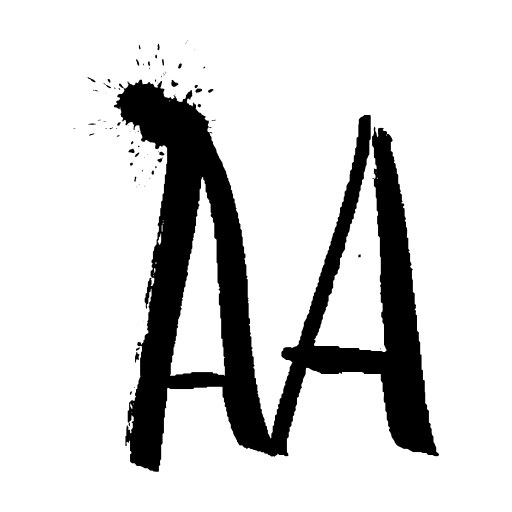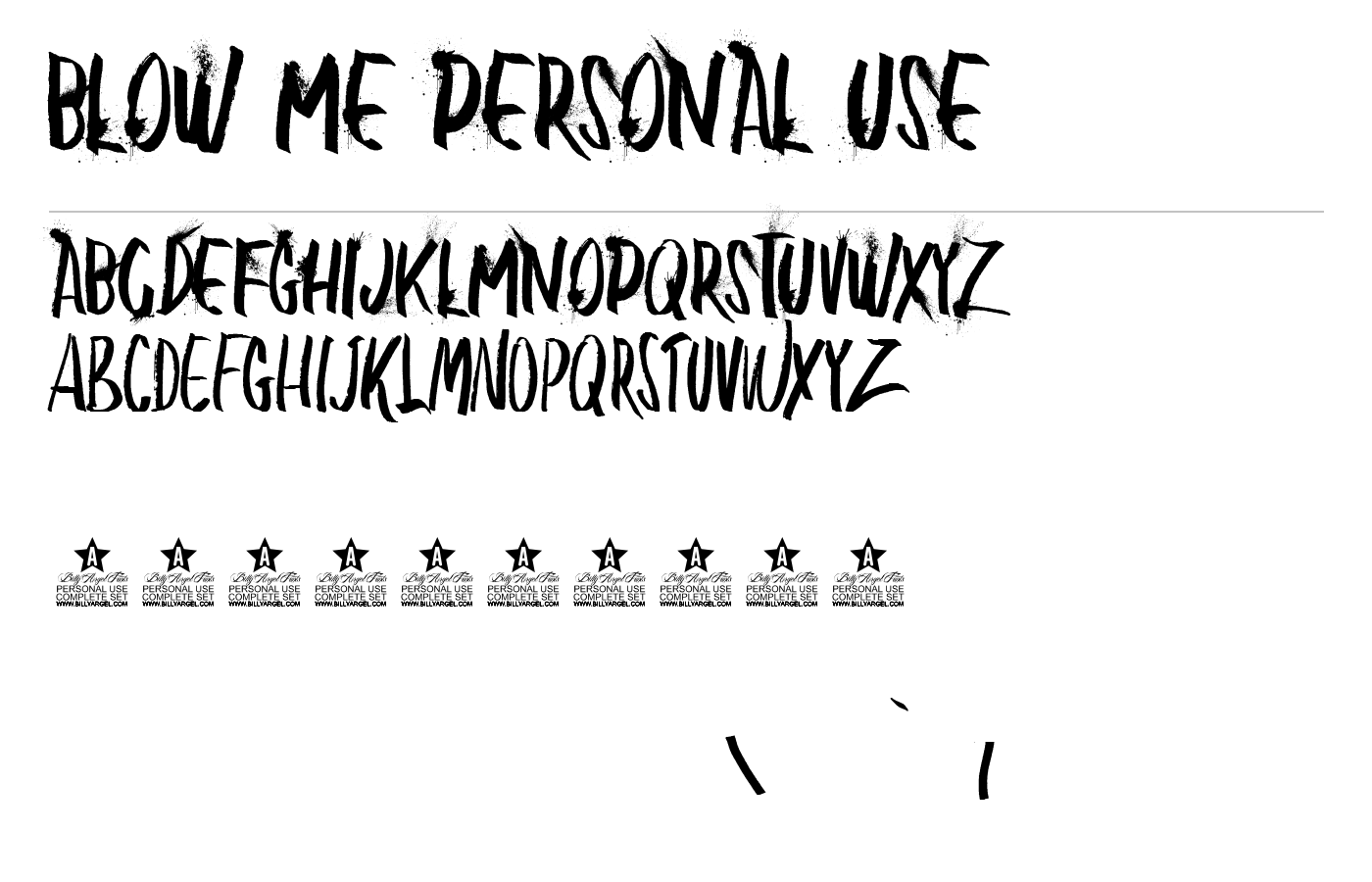
Blow Me Personal Use is a bold, hand-drawn sans serif font with a rough, textured appearance that gives it an edgy and expressive feel. Its tall, narrow letterforms with irregular strokes and splattered ink effects make it perfect for creative projects that need a raw, artistic touch. This font works best for posters, logos, and headlines where a unique, rebellious style can stand out.
BLOW ME PERSONAL USE Font
About BLOW ME PERSONAL USE Font